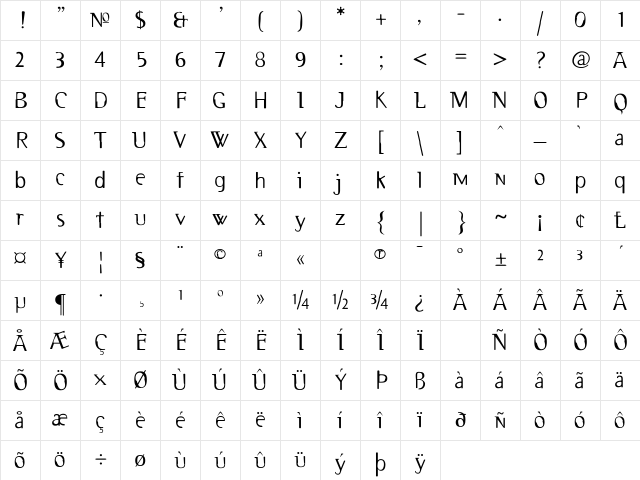
Deux Regular
Foundry: Rebels/Denis Dulude/
Design Context for Deux
Deux is a composed and adaptable typeface that performs quietly and consistently across a wide range of design contexts.
Pro Tip: Use Deux in both headline and body roles to test its range before committing to a single application.